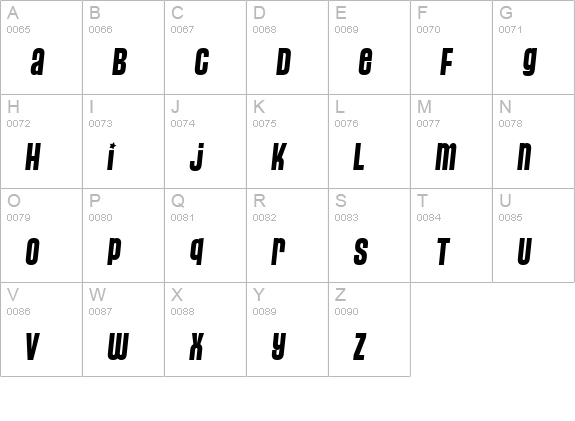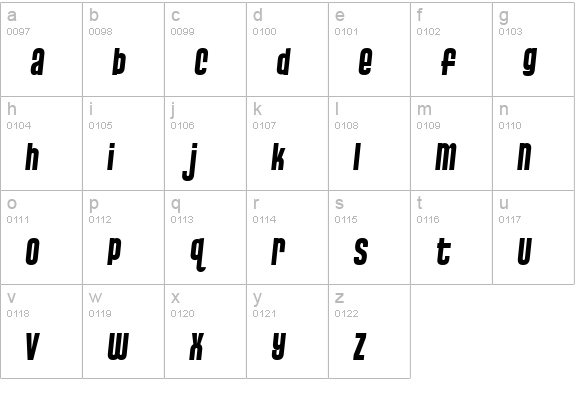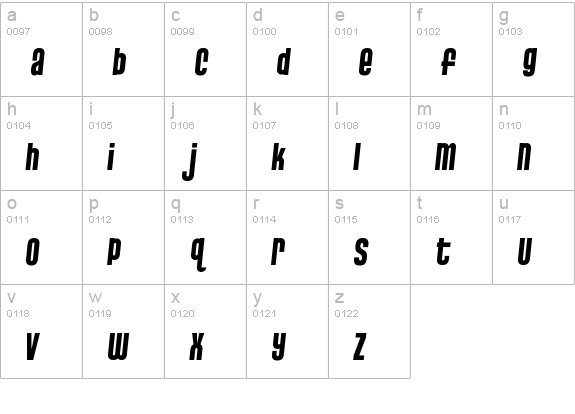
Pussycat Sassy Font Details
Introducing Pussycat Sassy font, a playful and charming typeface that exudes sass and personality. With its unique and quirky design, this font is perfect for adding a touch of fun and flair to your projects. The Pussycat Sassy font features whimsical curves and bold strokes that make it stand out from the crowd. Best of all, Pussycat Sassy font is available for free download at FontsMarket.com. Whether you're working on a creative project, branding materials, or simply looking to add a bit of pizzazz to your designs, this font is sure to make a statement. Don't miss out on the opportunity to elevate your work with the delightful Pussycat Sassy font – download it for free today!